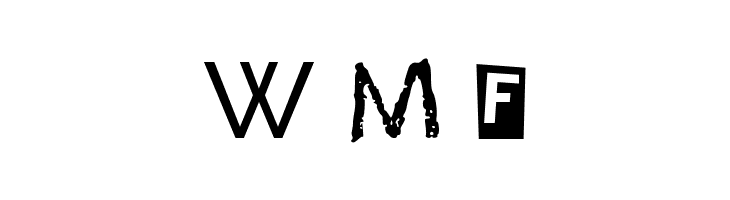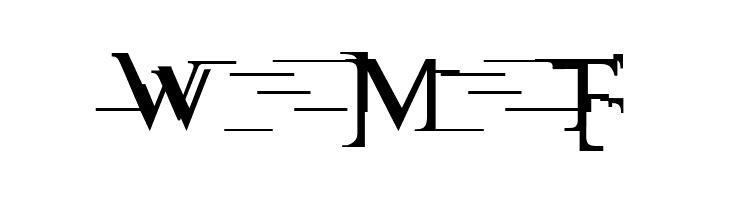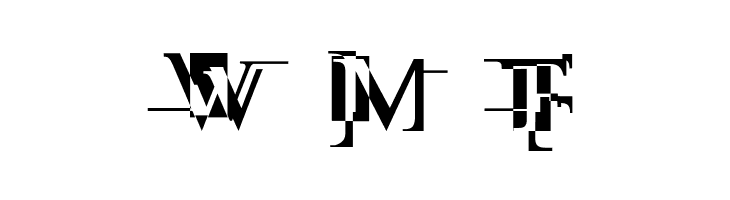
Miltown II Font
Font by Apostrophic Lab
A bold, decorative font with a fragmented, glitch-like style.
Miltown Font
Font by Apostrophic Lab
A glitch-inspired font with bold, distorted characters and a digital aesthetic.
Raspberry Miltown Neue Font
A creative and eclectic display font with diverse and playful character designs.